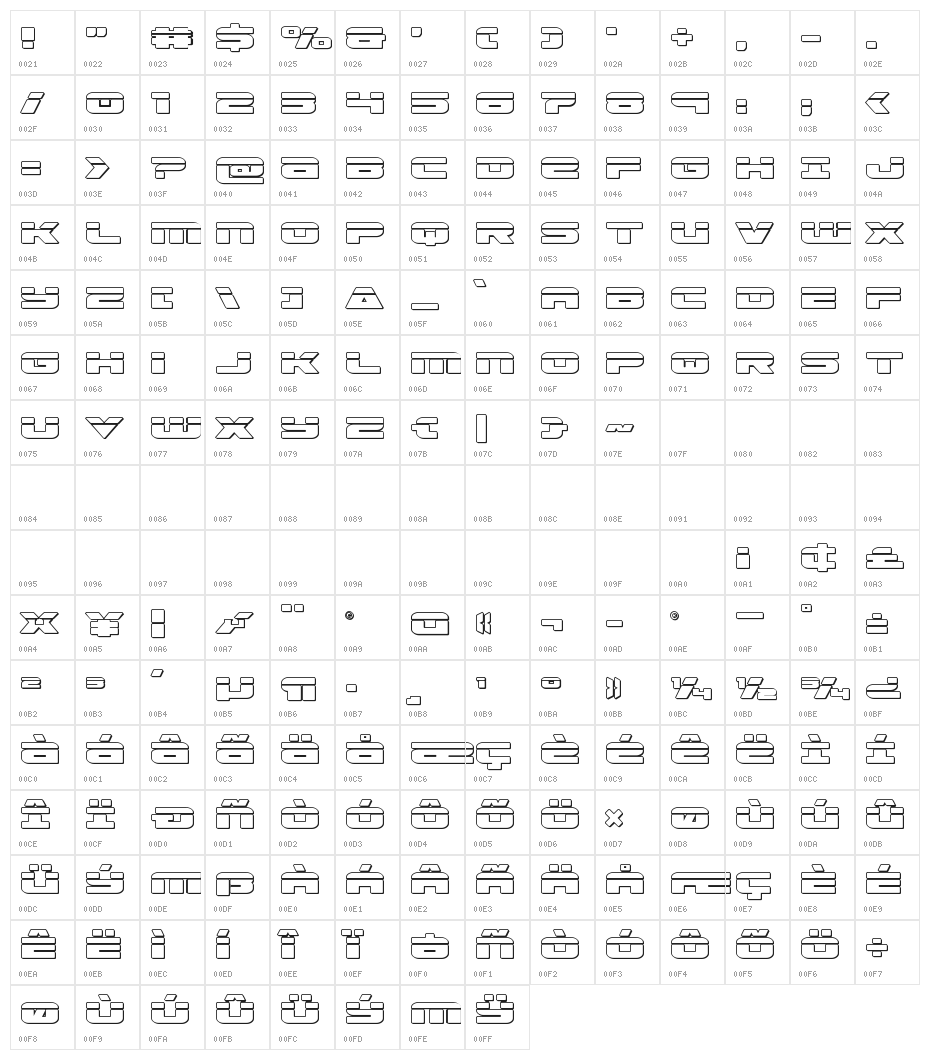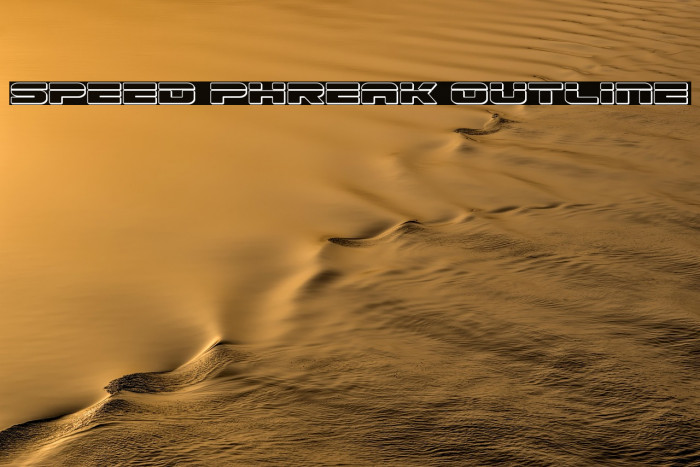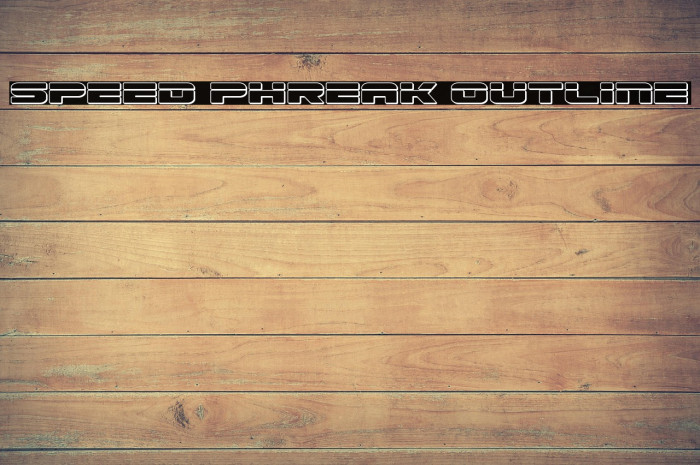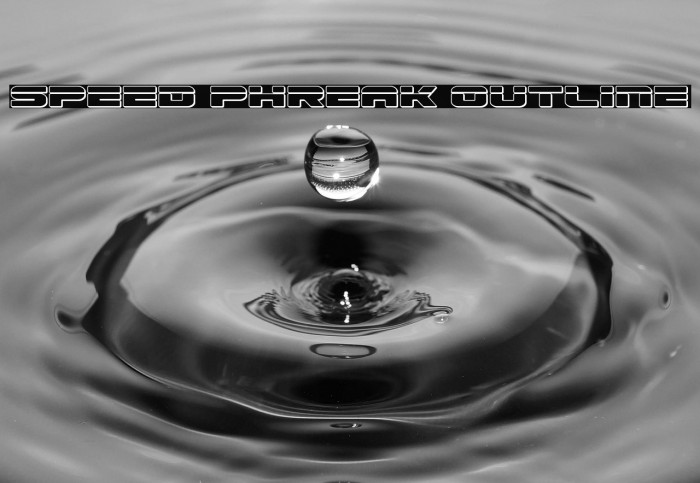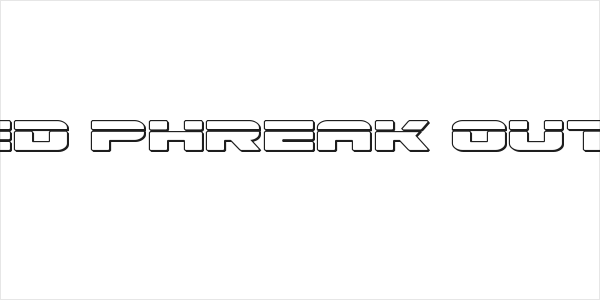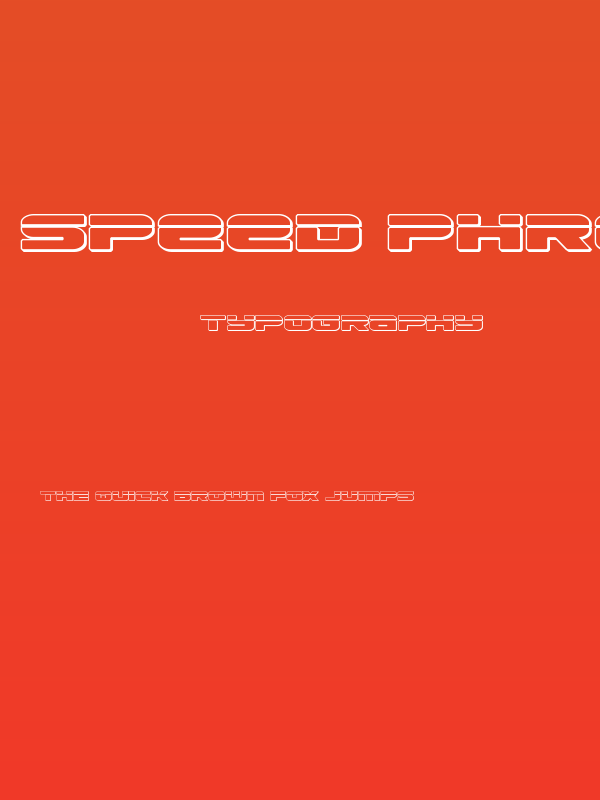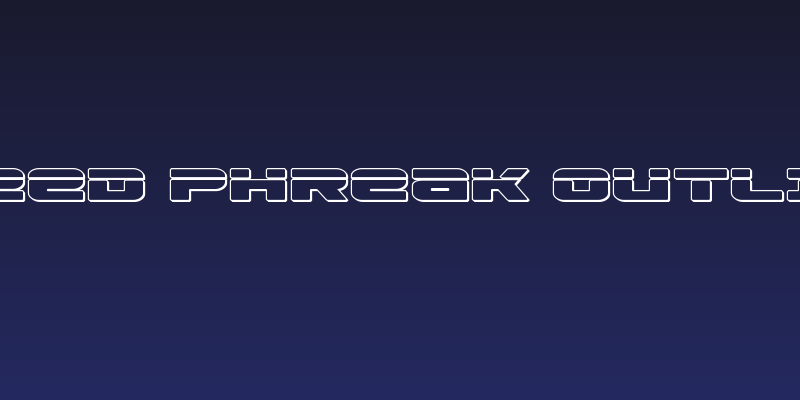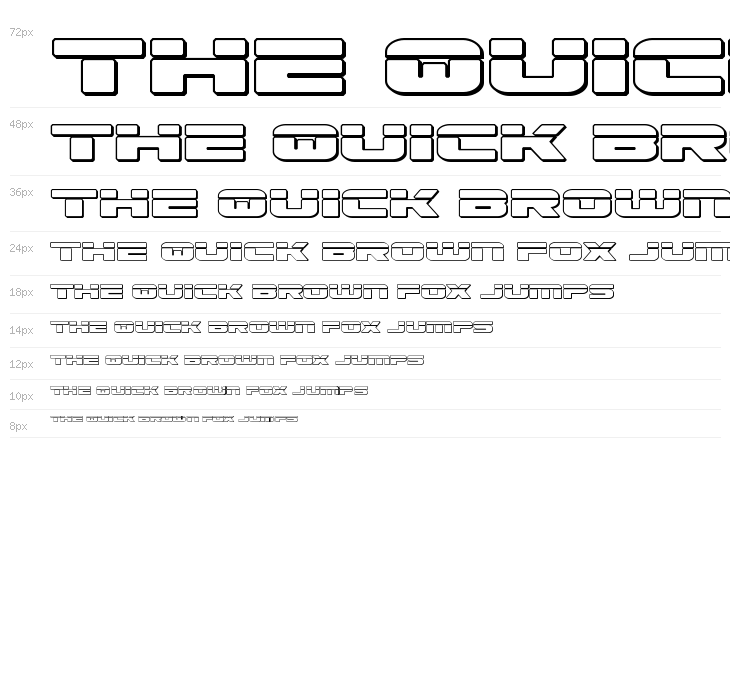
Speed Phreak Outline Font
Speed Phreak Outline Description
This font features a futuristic and geometric design with an outline style that gives it a distinct, modern appearance. The characters are constructed with bold, uniform strokes that form a consistent outline around each letter, number, and symbol. The design is highly stylized, with a focus on symmetry and balance, creating a cohesive look across all characters. The uppercase and lowercase letters maintain a similar height and width, contributing to a monospaced feel, although they are not strictly monospaced. The numerals and special characters are crafted to match the overall aesthetic, ensuring visual harmony. This font is ideal for projects that require a bold, eye-catching typeface with a modern and technological vibe.
Proposed ProjectsIdeal for technology branding, sci-fi themed designs, video game graphics, and futuristic posters.